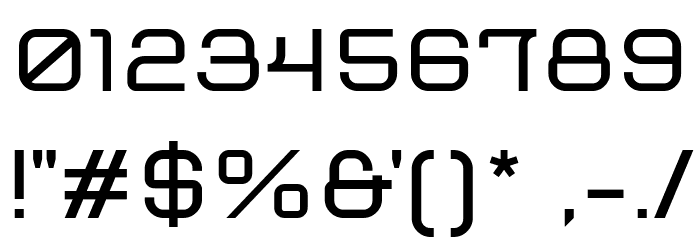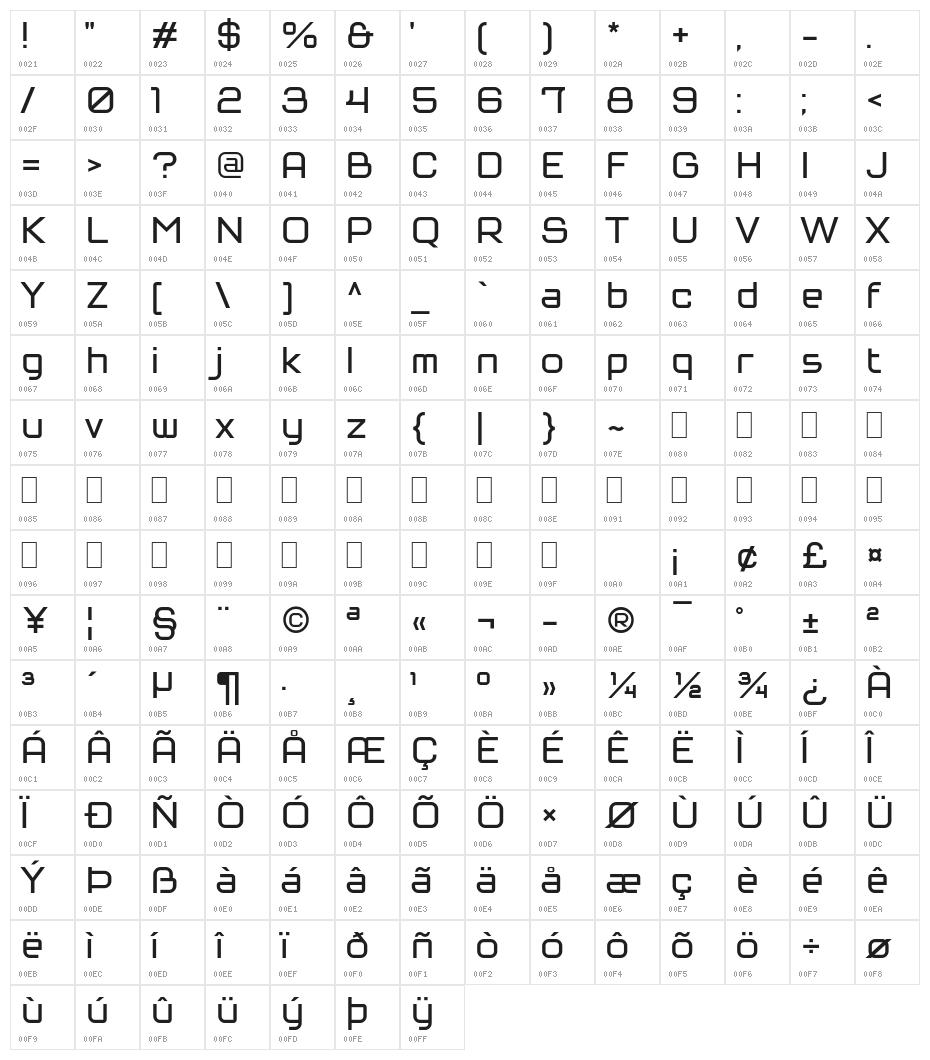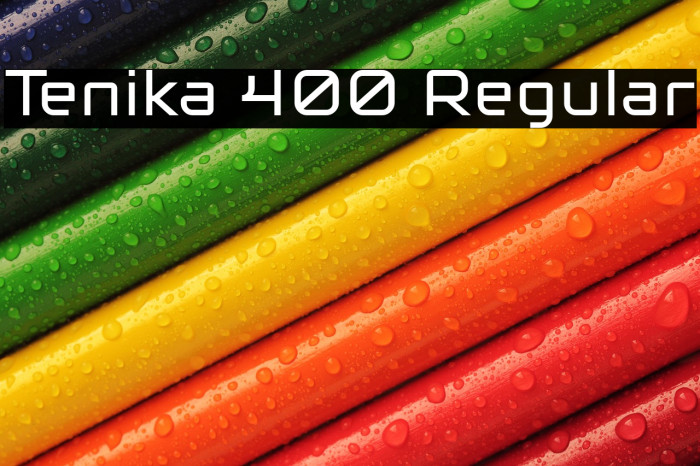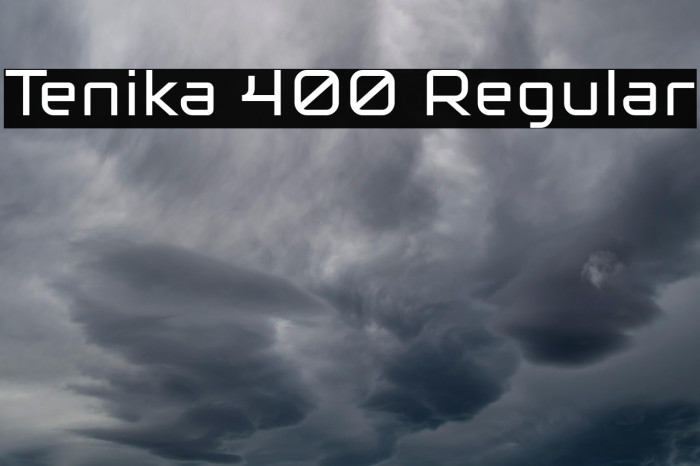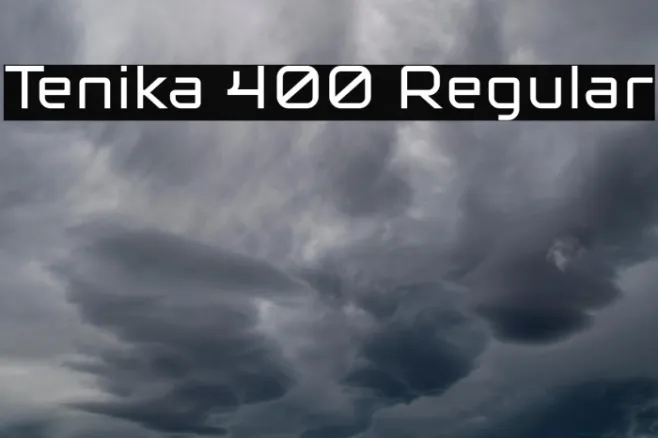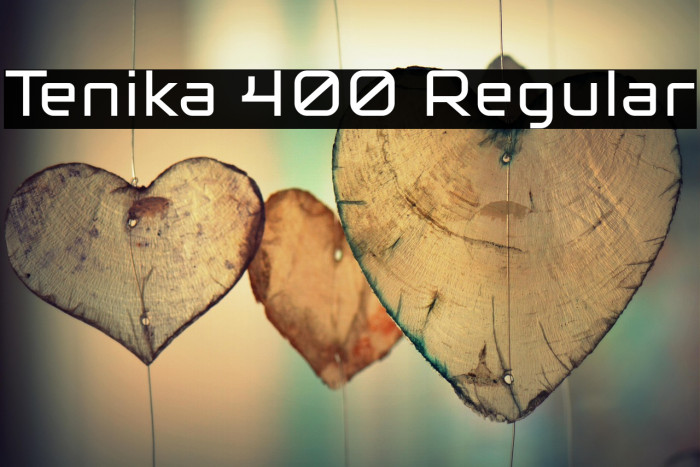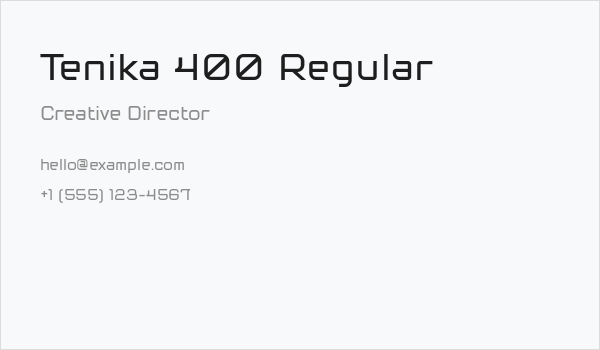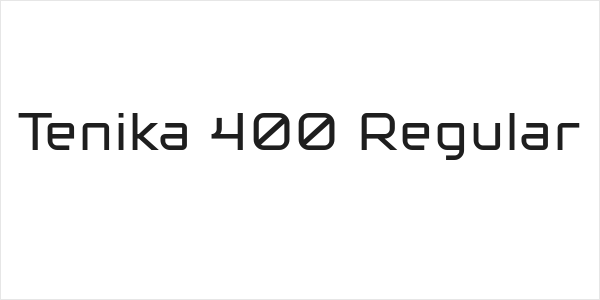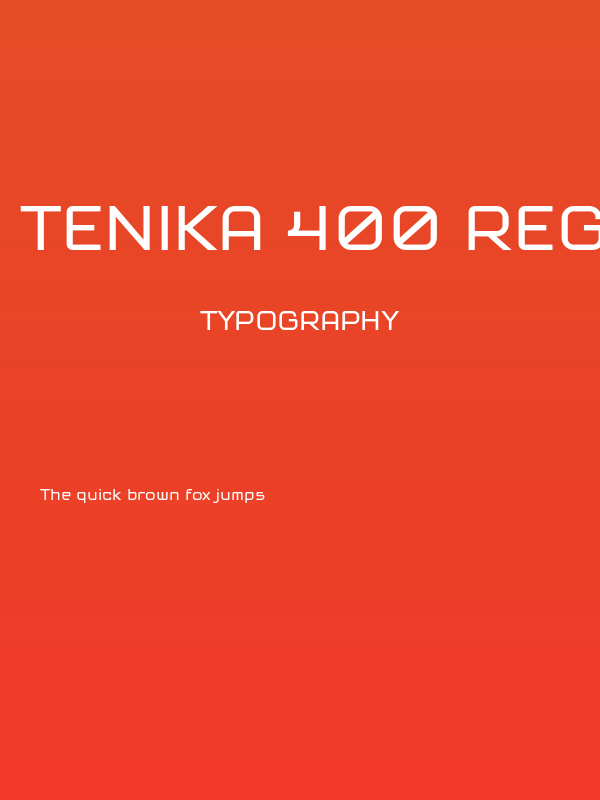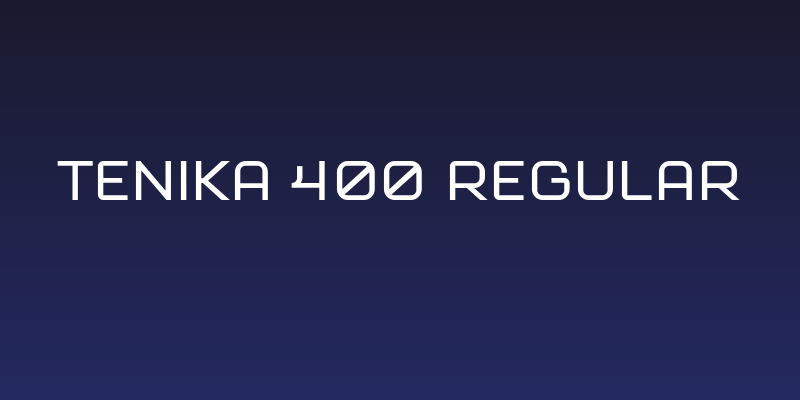
Tenika 400 Regular Font
Tenika 400 Regular Description
This font features a modern, geometric sans-serif style with clean lines and a uniform structure. The characters are well-balanced, with a consistent stroke width that gives it a sleek and contemporary appearance. The uppercase letters are slightly taller than the lowercase, maintaining a harmonious proportion. The numerals are distinct and clear, making them easily readable. Special characters are designed to match the overall aesthetic, ensuring a cohesive look across all text elements. The font's simplicity and clarity make it versatile for various design applications.
| Proposed Projects | Ideal for tech branding, modern web design, user interfaces, and minimalist posters. |